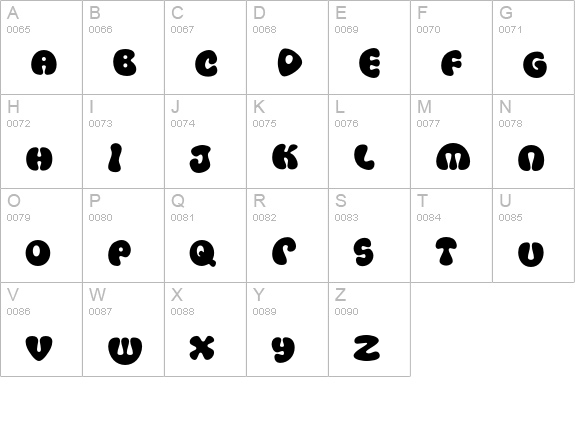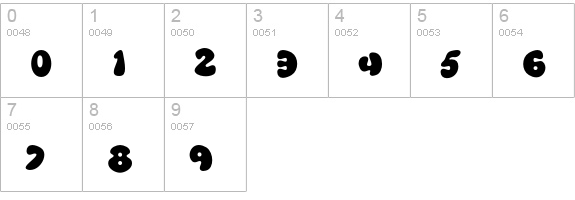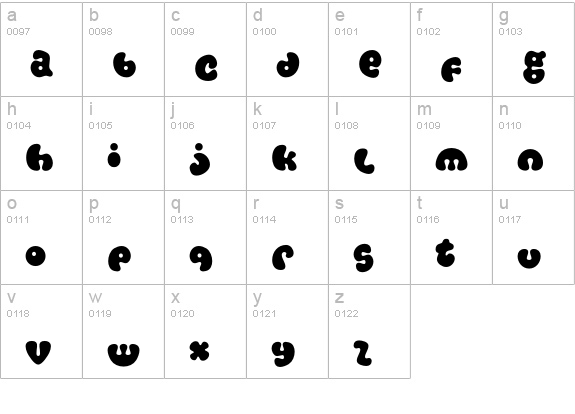
Amoeba-Bold Font Details
Amoeba-Bold is a strong, high-contrast variant in the Amoeba typeface family \xE2\x80\x94 well suited to headlines, attention-grabbing titles, and strong calls-to-action.
Introducing Amoeba-Bold, a modern and versatile font that exudes strength and sophistication. With its bold and striking design, Amoeba-Bold is perfect for creating eye-catching headlines, logos, posters, and more. This font is sleek and contemporary, making it a top choice for designers looking to make a statement. What's even better is that Amoeba-Bold is available for free download at FontsMarket.com. Whether you're a seasoned designer or just starting out, this font is a valuable addition to your collection. Don't miss out on the opportunity to enhance your projects with the bold and impactful Amoeba-Bold font. Download it now and let your creativity shine!